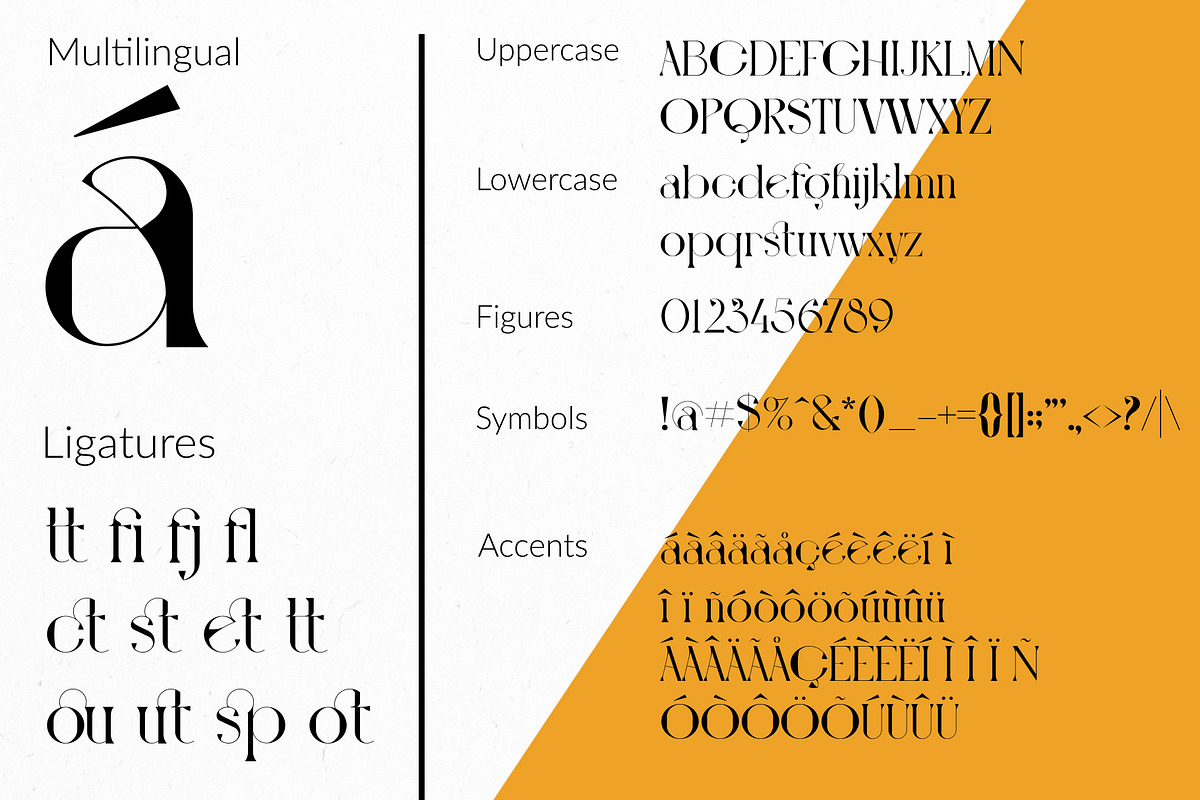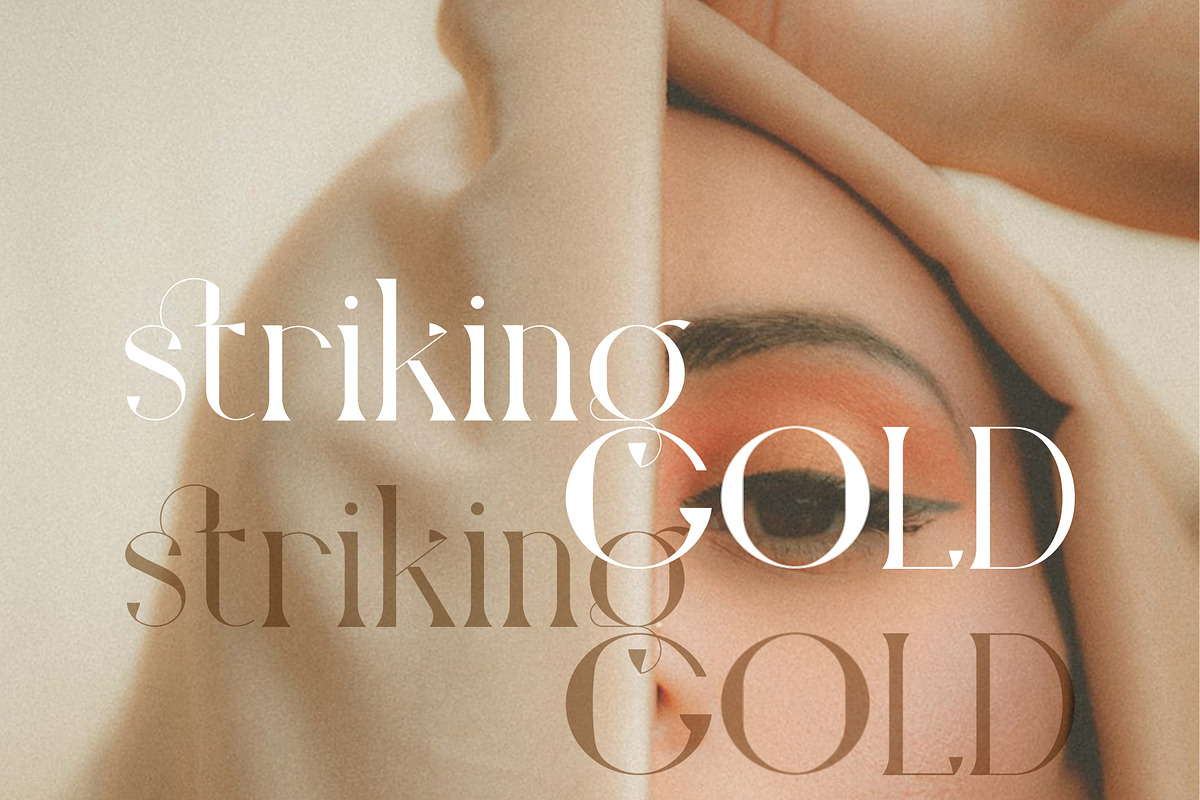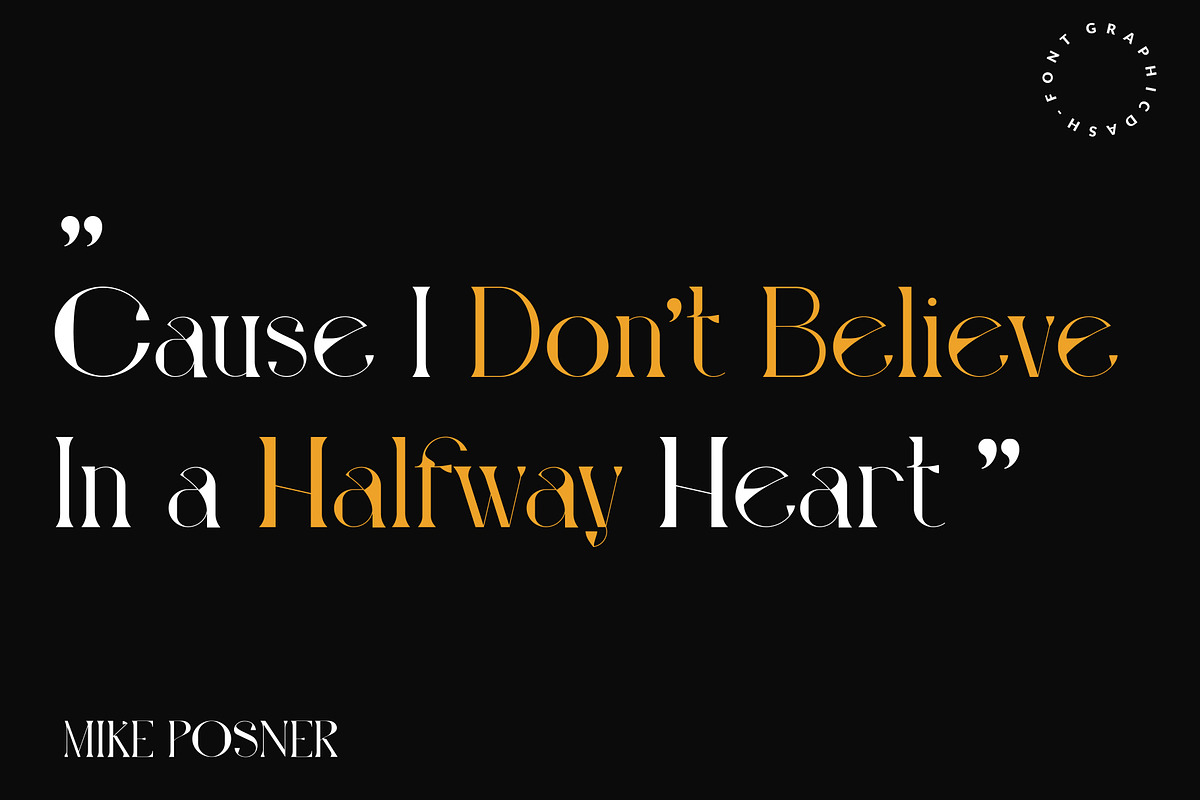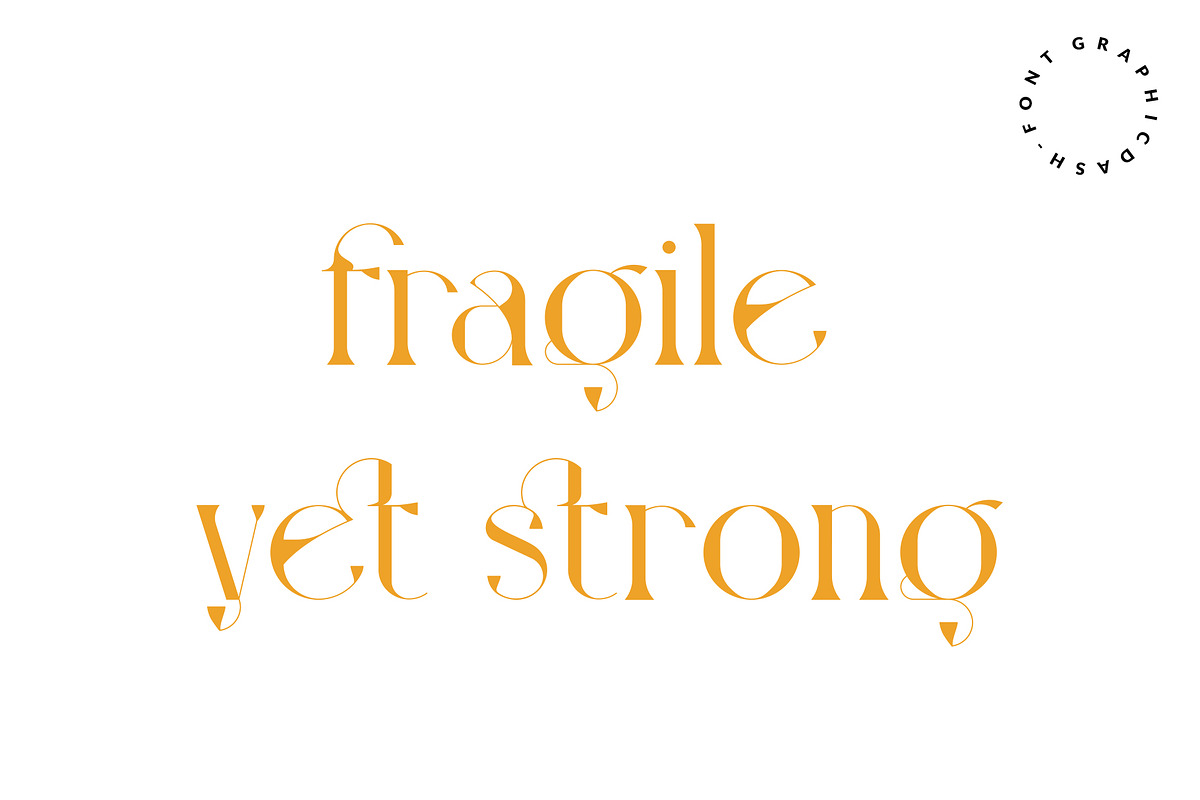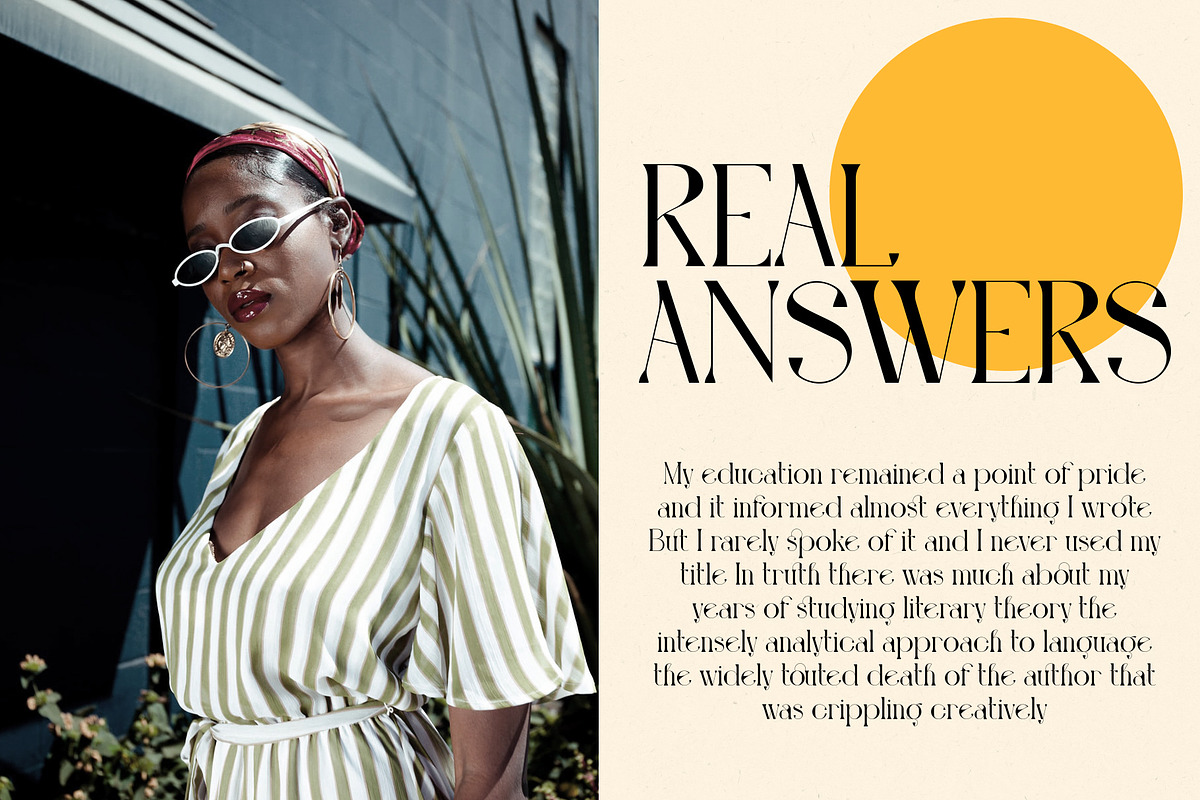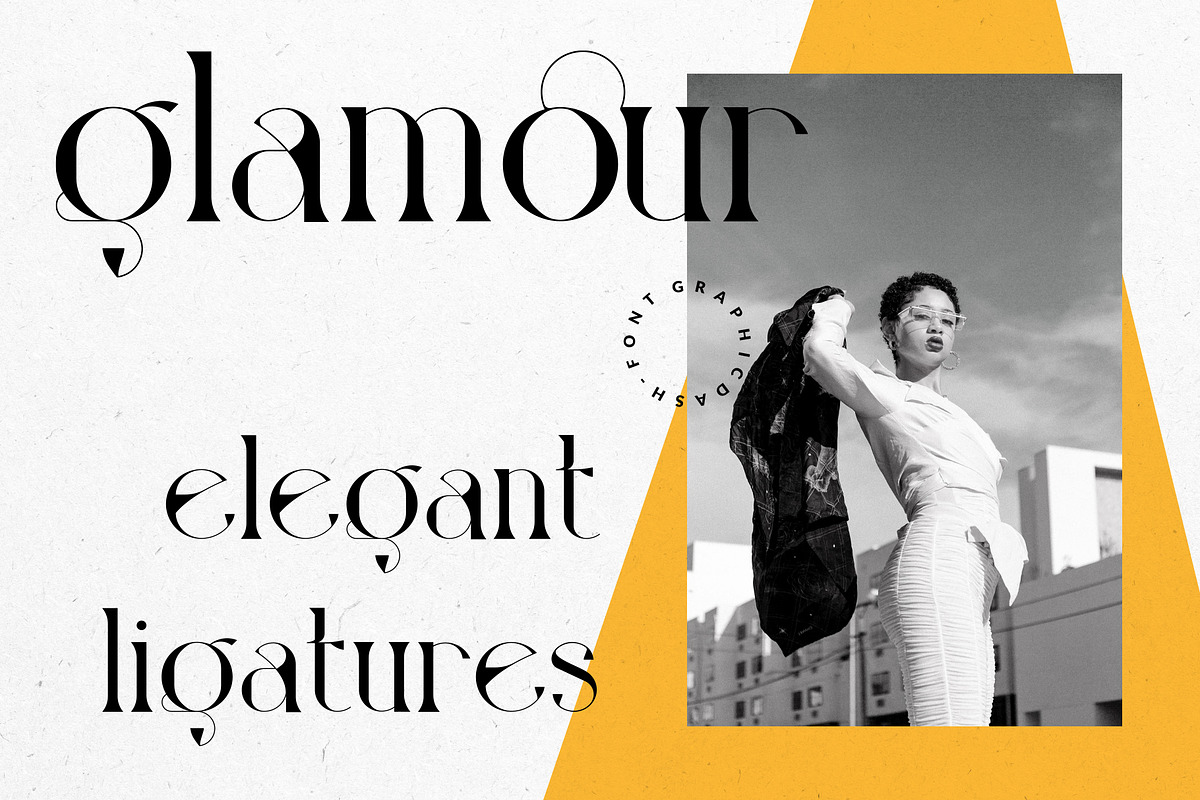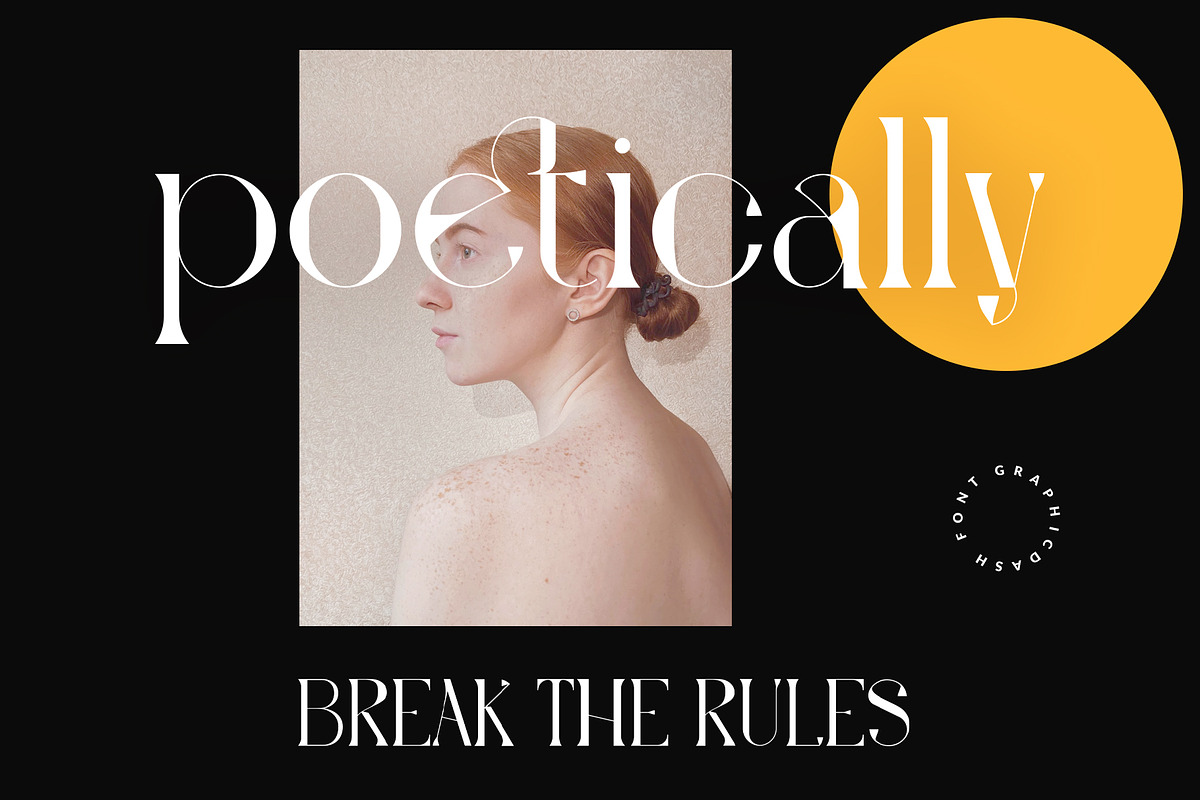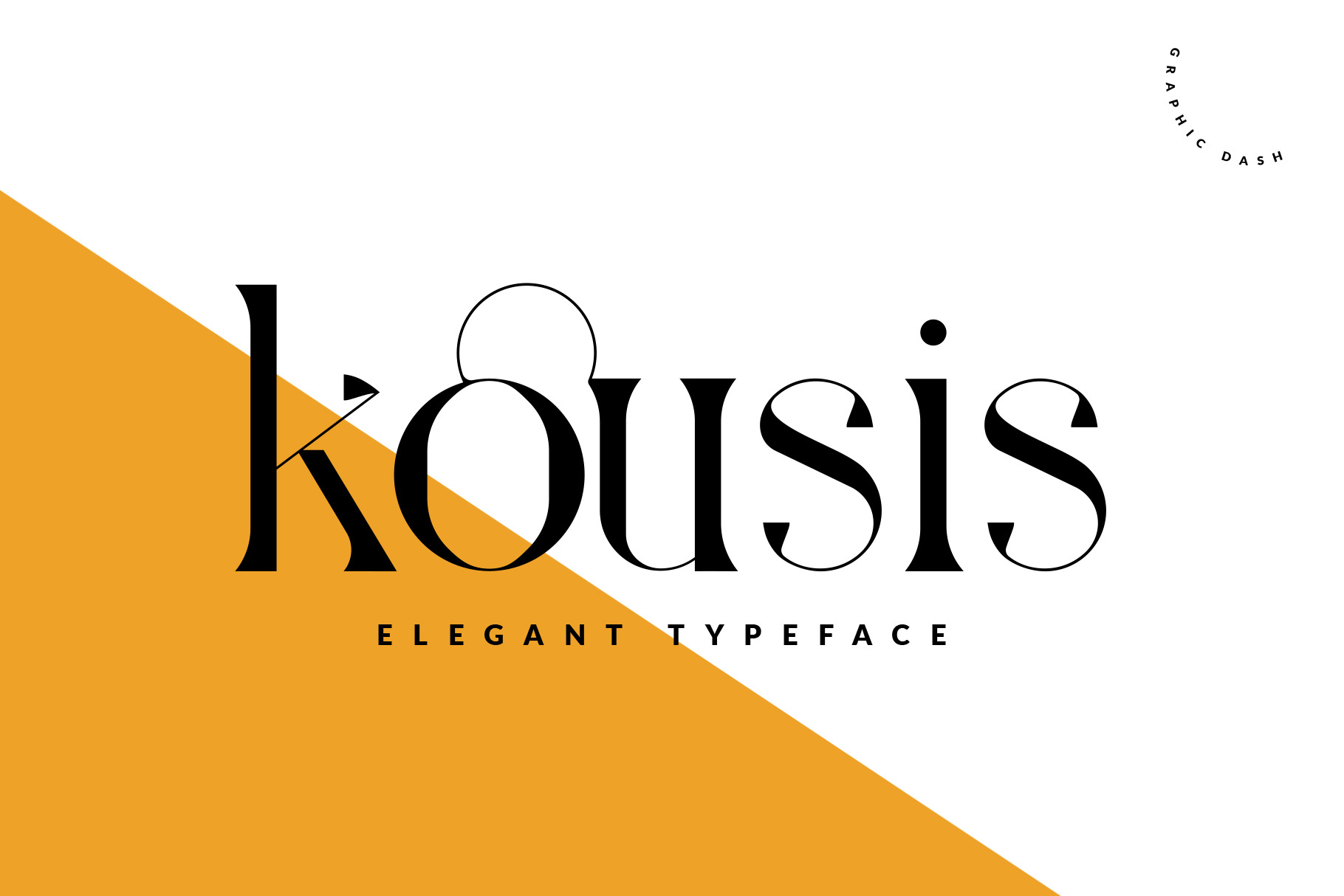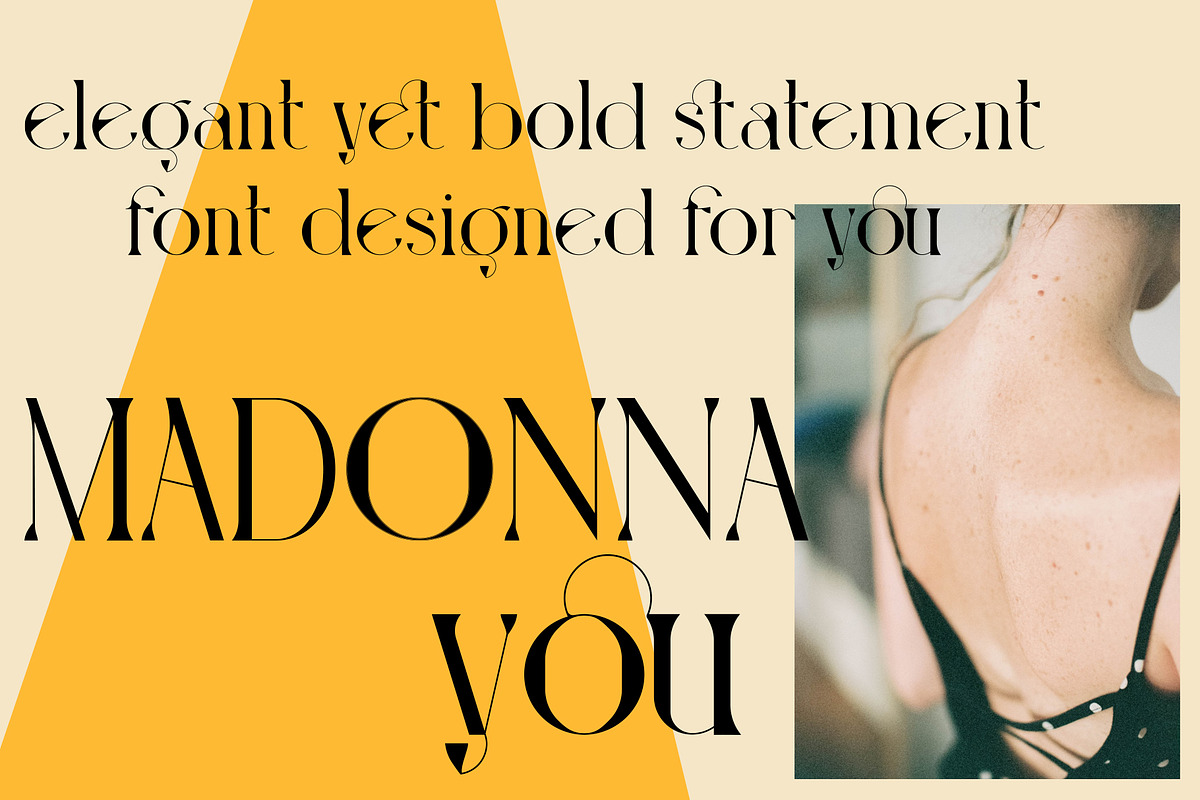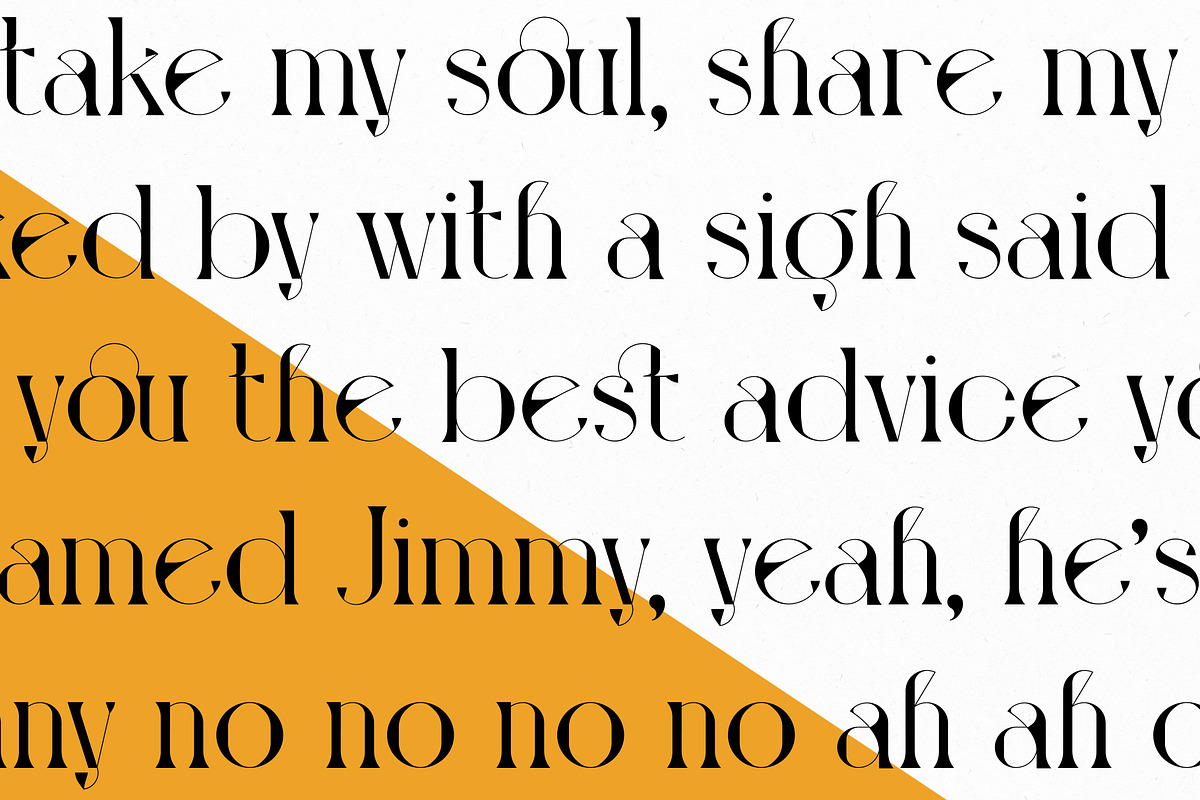
Kousis - Elegant/Feminine Font
Kousis is a versatile, feminine, and elegant font. It has a unique style with stylistic, alternates, ligatures, and supports multilingual languages.
Create unique & beautiful logotype, use it as an elegant solution for your next magazine layout, or choose Kousis for any graphics that require a sleek look with an elegant flair.
- Uppercase/Lowercase/Ligatures, numbers, punctuation & multilingual support.